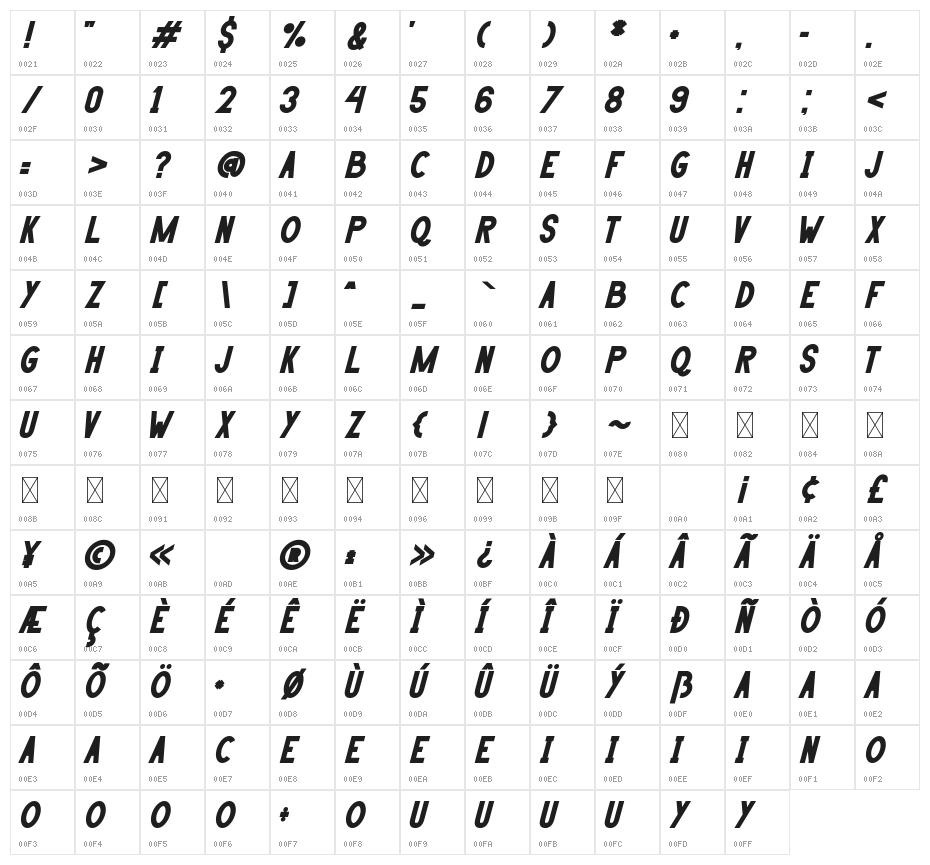
HANDA Bold Italic Font
HANDA Bold Italic Description
This font exhibits a bold and italicized style, characterized by its strong, dynamic slant and thick strokes. The letters are designed with a consistent weight, providing a sense of urgency and movement. The uppercase and lowercase letters maintain a uniform appearance, enhancing readability while still conveying a sense of boldness. The numerals and special characters are crafted to match the overall aesthetic, ensuring a cohesive look across all text elements. This font's design is both modern and assertive, making it suitable for impactful visual communication.
| Proposed Projects | Ideal for headlines, posters, branding materials, and any design requiring a strong visual impact. |